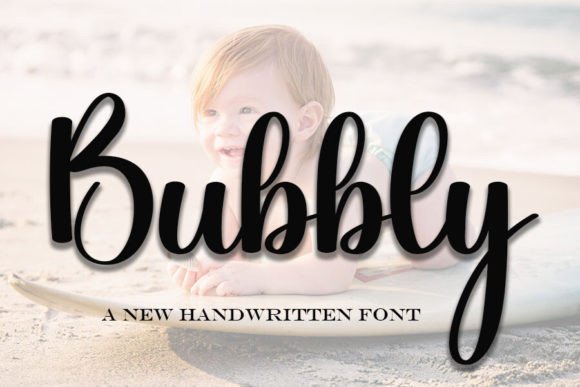
The Bubbly Font: A Timeless Elegance for Your Designs
Have you ever been in the middle of a design project, and suddenly, you’re stuck on finding the perfect font? I recall a recent experience where I was working on a branding project for a luxury client, and I just couldn’t find a font that exuded the elegance and sophistication I was looking for. That’s when I stumbled upon the Bubbly font, and it instantly became my go-to choice. In this article, I’ll share my love for this beautiful handwritten font, its features, and how to make the most of it in your designs.
A Personal Review: What I Love About Bubbly
Here’s what makes Bubbly a standout font:
- ✨ Elegant touch: Bubbly’s handwritten style has an undeniable charm that adds a touch of sophistication to any design.
- ✅ Timeless style: The font’s classic look ensures it won’t go out of style anytime soon, making it a great investment for designers.
- 💫 Distinctive: Bubbly’s unique character set makes it easy to recognize and remember.
While Bubbly is an excellent font, there are a few things to keep in mind:
- ⚠️ Limited use in body text: Due to its elegant and cursive nature, Bubbly might not be the best choice for long-form content.
- 🤔 May require adjustment for small sizes: Bubbly’s intricate details might get lost when scaled down; be sure to test it at different sizes.
- Experiment with OpenType features, such as ligatures and stylistic alternates, to add visual interest.
- Explore glyphs and stylistic alternates to create stunning text effects.
The Designer Inspiration Behind Bubbly
Bubbly’s design story began with a passion for elegant handwriting. The creator, inspired by classic calligraphy, aimed to craft a font that would bring a touch of sophistication to any design. Through meticulous attention to detail, Bubbly was born – a beautiful, timeless font that has captured the hearts of designers worldwide.
| What makes Bubbly suitable for branding projects? | Bubbly’s elegant and distinctive style makes it perfect for creating a lasting impression in branding projects. |
| Can I use Bubbly for body text? | While possible, Bubbly’s cursive nature makes it more suitable for headings and titles; consider using a serif font for body text. |
| Is Bubbly a versatile font? | Yes, Bubbly can be used in various design contexts, from luxury branding to creative projects. |